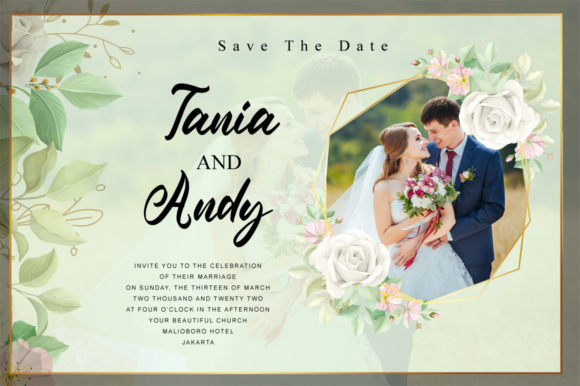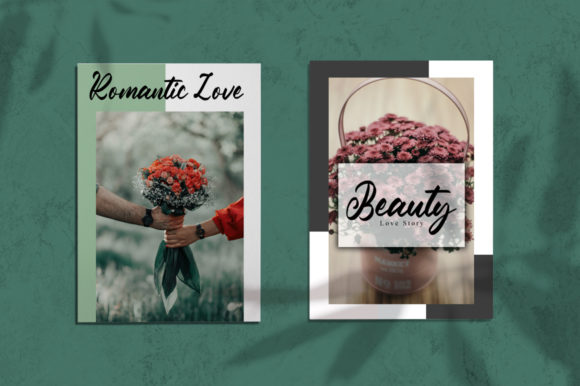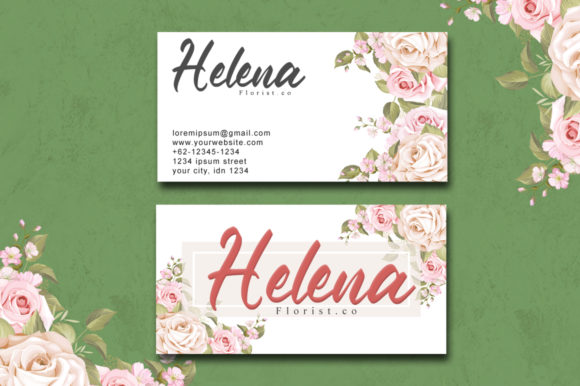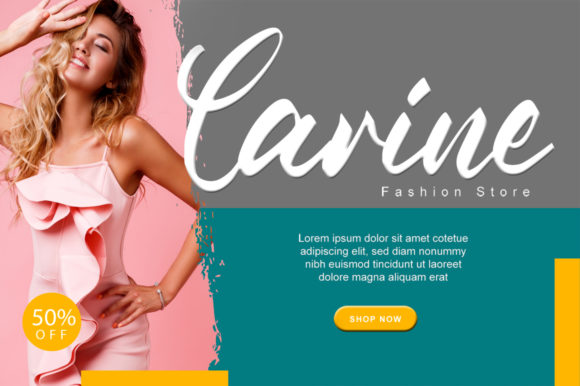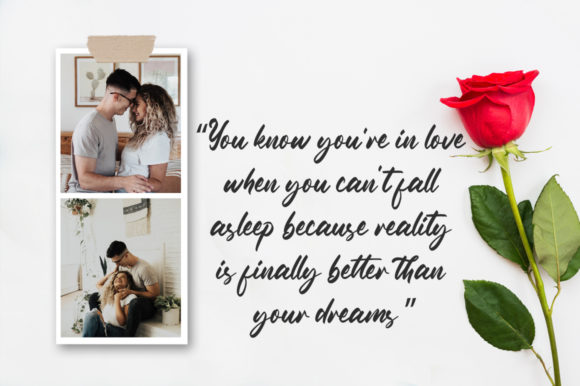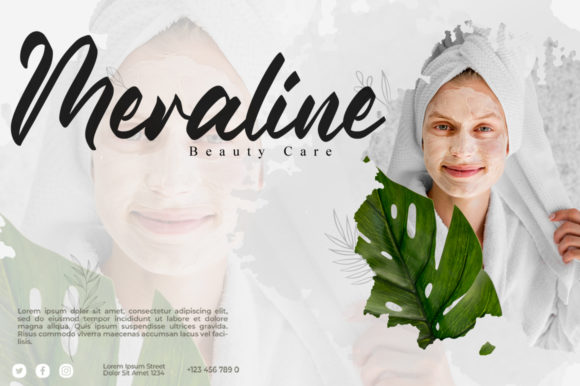
Introduction to Shamora Font
Do you remember that moment when a creative idea suddenly pops into your head, and you can’t wait to bring it to life? For designers, this is a daily occurrence, and having the right tools can make all the difference. That’s where the Shamora Font comes in – a beautiful, handwritten font that’s sure to elevate your next creative project.
Whether you’re working on a branding project, creating a social media campaign, or designing a digital product, the Shamora Font is an excellent addition to your design resource arsenal. Its friendly feel and high-quality design make it perfect for projects that require a touch of personality and whimsy. And the best part? It’s free to download, giving you the freedom to experiment with different designs without worrying about costs.
Key Features of Shamora Font
- High-quality design with a unique, elegant style suitable for creative projects.
- Designed to be versatile, allowing users to experiment with different styles and layouts for their creative projects.
Honest Review: Shamora Font
I recently had the chance to work with the Shamora Font for a creative project, and I must say it was a great experience. This font is a fantastic design resource that can elevate any project.
Here are some things that worked well for me: ✨
- The Shamora Font offers a high-quality design that is perfect for creative projects.
- The font comes in a transparent background, making it easy to layer and combine with other design elements.
However, I did encounter some limitations: ⚠️
- The font may not be suitable for very small text sizes, as the letters can become difficult to read.
- The font family is not as extensive as some other popular fonts, which may limit its versatility.
Overall, I’m really impressed with the Shamora Font. It’s a great design resource that can add a touch of elegance and sophistication to any project. I would definitely recommend it to fellow designers.
Tips for Getting the Most Out of Shamora Font
Experiment with different font sizes and styles to add visual interest to your design. Use the Shamora Font in combination with other high-quality design elements to create a cohesive and engaging visual identity.
Common Use Cases for Shamora Font
The Shamora Font is ideal for creative projects that require a unique and eye-catching typography. Common use cases include branding, marketing materials, and digital graphics.